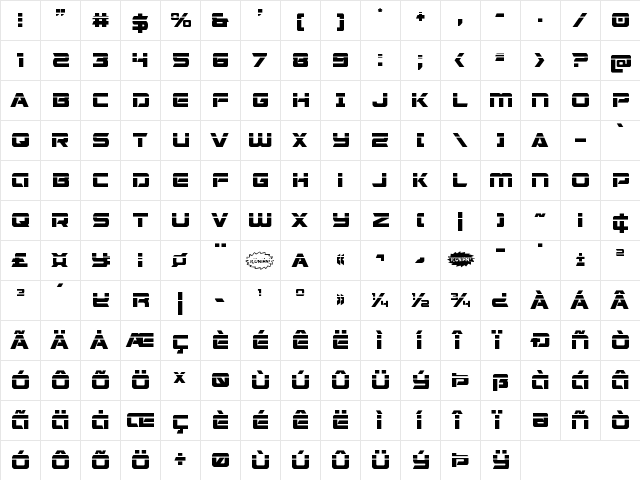
Starduster Laser Regular Font Preview
Starduster Laser Regular
Starduster Laser Regular Font Details
Design Context for Starduster Laser Typeface
Starduster Laser is a composed and adaptable typeface that performs quietly and consistently across a wide range of design contexts.